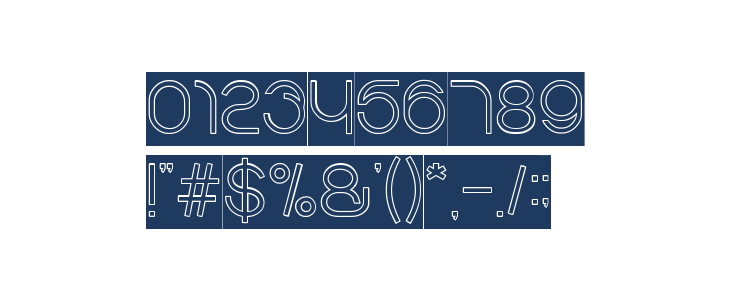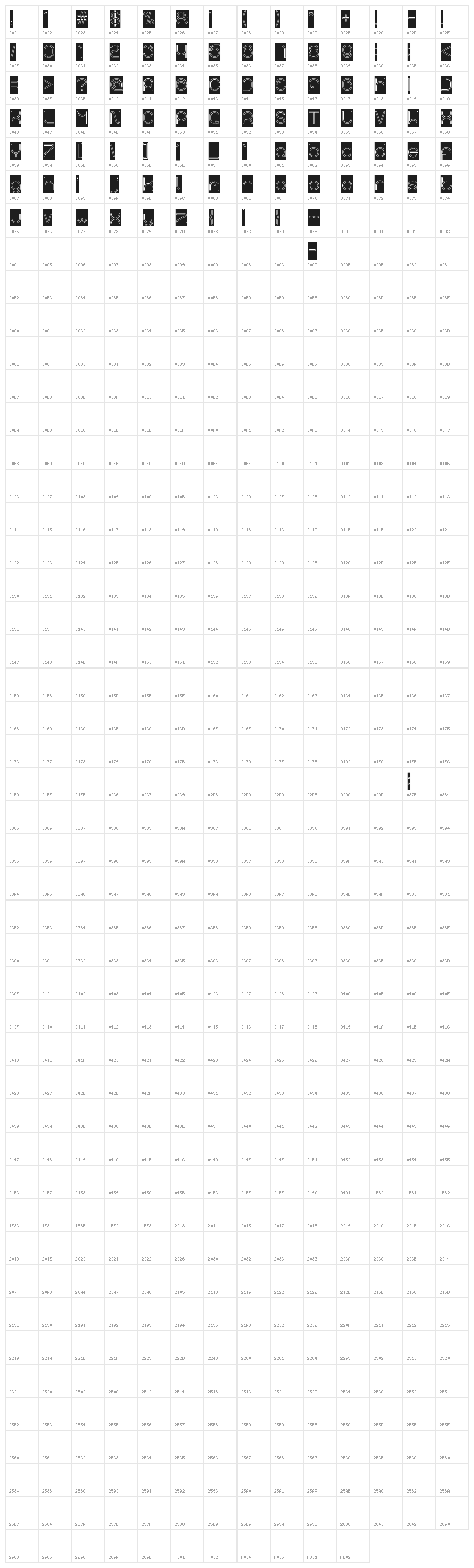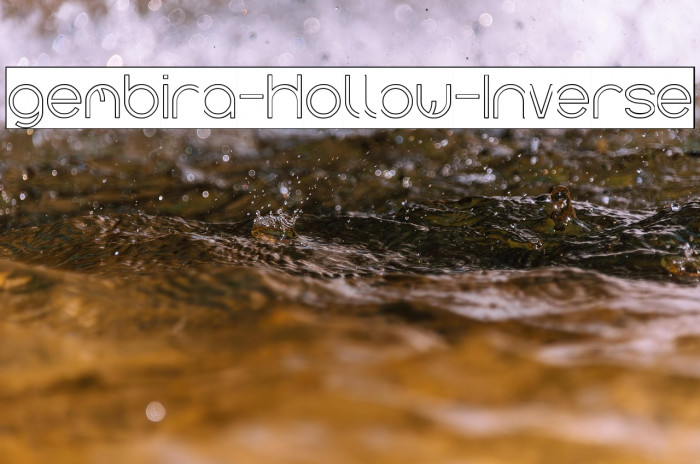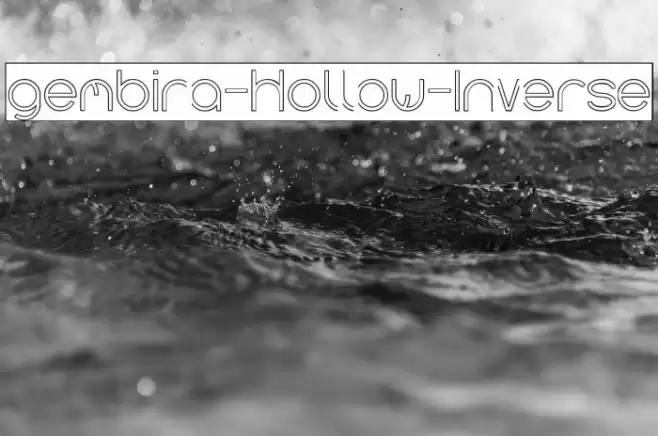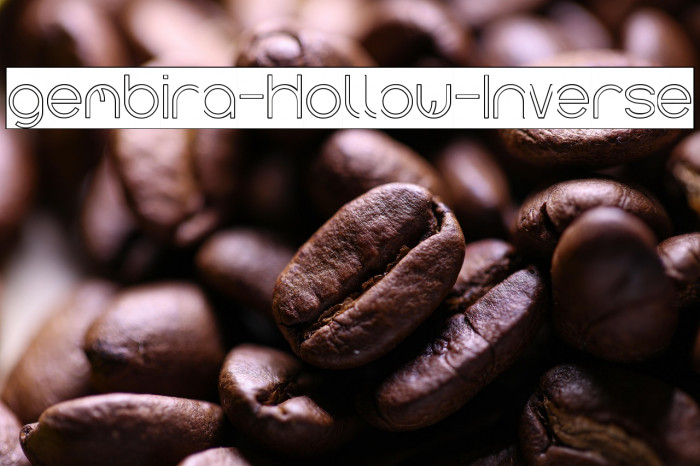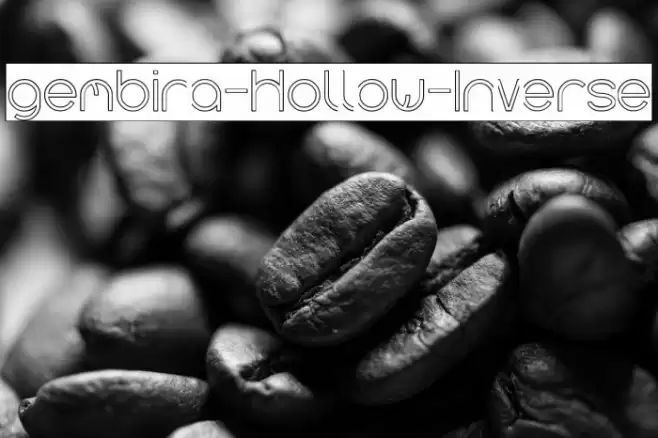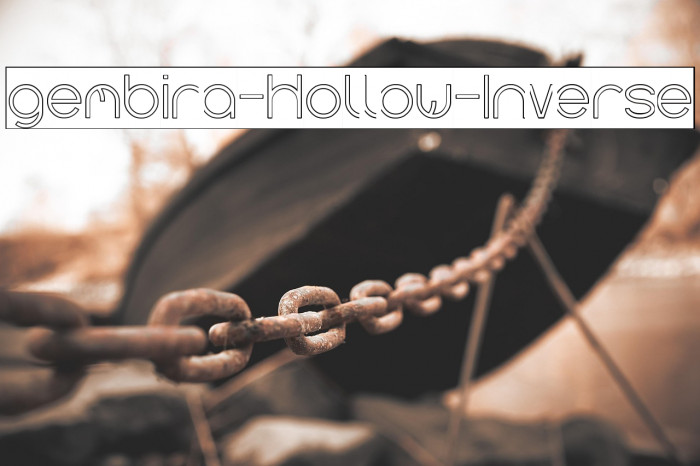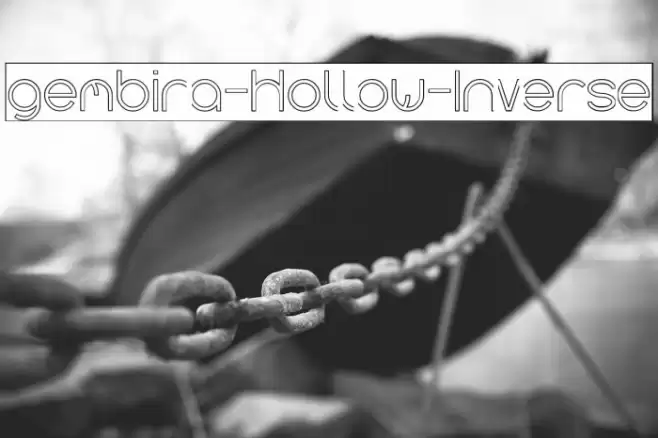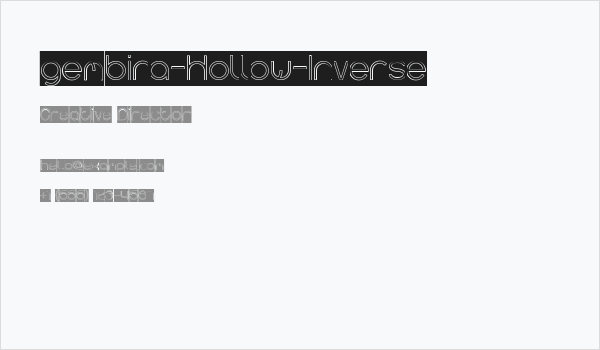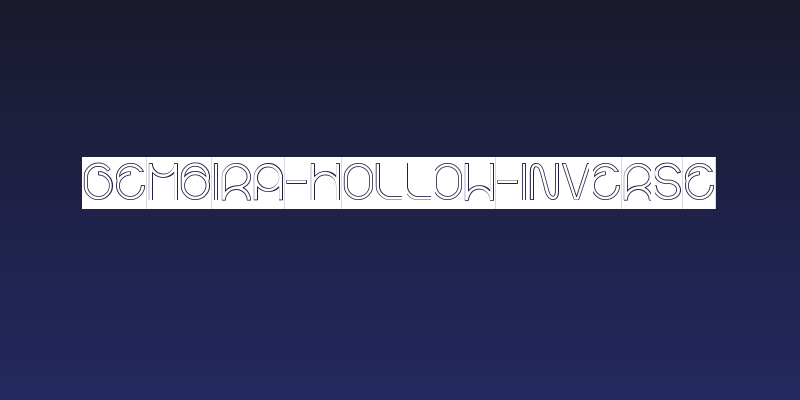
gembira-Hollow-Inverse Font
gembira-Hollow-Inverse Description
This font features a unique hollow design with an inverse style, creating a striking visual effect. The characters are outlined with a consistent stroke width, giving them a modern and futuristic appearance. The uppercase and lowercase letters maintain a geometric structure, with rounded edges and smooth curves. Numbers and special characters follow the same design principles, ensuring uniformity across the typeface. The overall look is clean and minimalistic, making it suitable for contemporary design projects that require a bold statement.